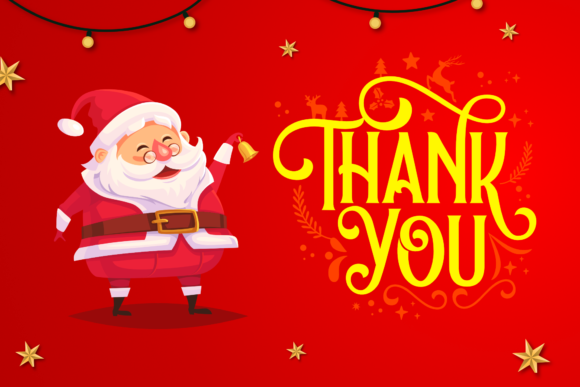
Holidays Christmas Font
Holidays Christmas is a festive and incredibly classy display font. It is ideal for any of your winter break creations so add it to your designs and bring them to life!